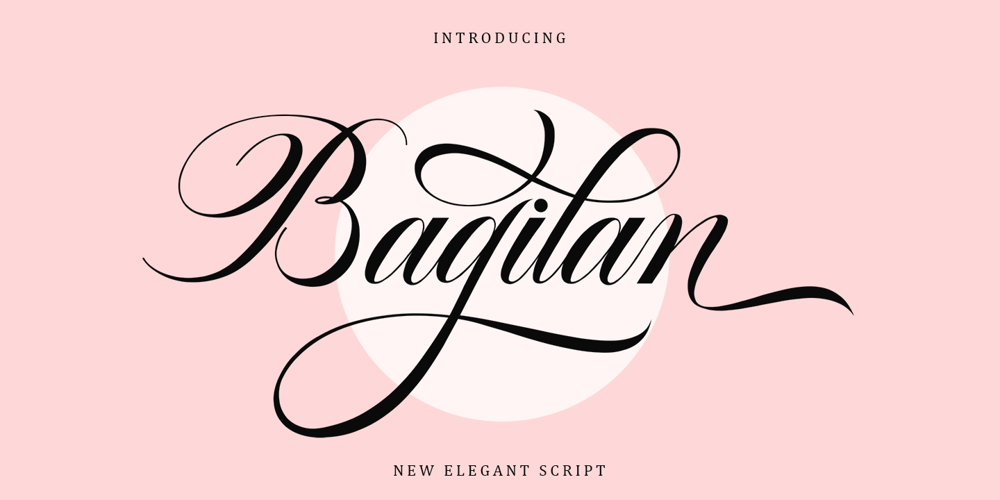
Bagilan Font Family was designed by Muhibbus Sabri and published by Queenop Studio. Bagilan contains 1 styles and family package options. Bagilan – Modern Calligraphy Script FontBagilan is an elegant, beautiful and flowing handwritten font perfectly for your favorite projects. This font is neatly crafted and very detailed. Whatever the topic, this font will be a great asset to your font library, as it has the potential to enhance any creation. Fall in love with her completely different and timeless style, and use it to create stunning designs.Many alternatives will help you create whatever design you need such as cute and girly handwritten letters and other designs that require a beautiful handwritten touch! Enjoy :)Contains full set:-Uppercase-Lowercase-Alternative-Ligatures-Punctuation-Number-Multilingual support.Need help or have questions let me know. I’m happy to help.Thanks & Congratulations on the Design.